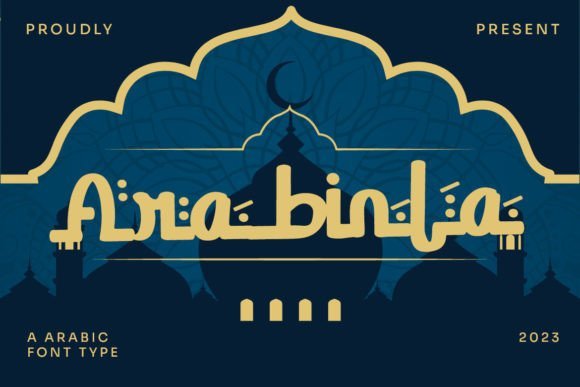
The Art of Elegant Design: Unveiling the Arabinta Font
As a designer, there’s nothing quite like the thrill of discovering a new font that perfectly captures the essence of a project. It’s that moment when the perfect lettering style suddenly appears, and everything falls into place. For those who have been searching for a way to infuse their designs with the beauty of traditional Islamic calligraphy, we’re excited to introduce you to the stunning Arabinta Font.
Arabinta Font is more than just a font – it’s a masterpiece of elegance and refinement. With its intricate details and graceful curves, it’s the perfect choice for luxury branding, elegant invitations, and other high-end design projects where sophistication and artistry are a must. Whether you’re a seasoned designer or just starting out, the Arabinta Font is an invaluable addition to your toolkit, offering a unique and timeless touch to your work.
Arabinta Font Key Features
- Font Family: Arabinta is a multilingual font family that supports various languages, including Arabic, Latin, and other scripts.
- Unique Characteristics: Arabinta features a unique blend of modern and traditional design elements, making it an ideal choice for creative and professional projects.
Arabinta Font Review
Overall, I found the Arabinta font to be a unique and interesting addition to the world of typography. It offers a blend of traditional and modern elements that can add a touch of elegance and sophistication to any design project. ✨
Some of the strengths of the Arabinta font include its high legibility and versatility. It can be used in a variety of contexts, from body text to headings, and its clear lines and balanced proportions make it easy to read. The font also has a number of custom styles, including a bold weight and italics, which can add depth and variety to your designs. ✨
However, I did encounter a few limitations with the Arabinta font. The font’s unique design can make it difficult to use in situations where a more traditional or neutral font is required. Additionally, some users may find the font’s lines and shapes to be a bit too ornate, which can make it challenging to read in certain contexts. ⚠️
Here are a few specific things that I liked and disliked about the Arabinta font:
- Liked: High legibility, versatility, and custom styles
- Liked: Elegant and sophisticated design
- Disliked: Limited suitability for traditional or neutral designs
- Disliked: Potential readability issues due to ornate lines and shapes
Overall, I would recommend the Arabinta font to designers who are looking for a unique and stylish addition to their toolkit. However, it may not be the best choice for every project, and users should carefully consider the font’s limitations before using it.
Tips for Getting the Most Out of the Arabinta Font
The Arabinta Font is a versatile font that can be used in a variety of designs. To get the most out of it, consider the following tips:
- Use the font in combination with other fonts to create a unique and interesting design.
- Use the font in bold or italic styles to add emphasis to your text.
The Arabinta Font is commonly